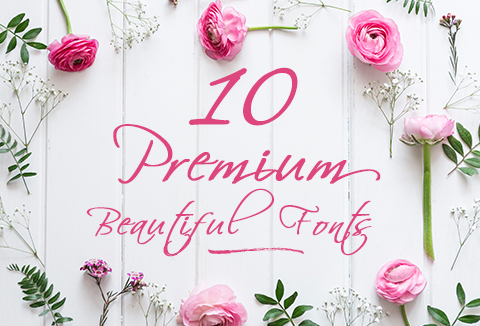
10 Creative Fonts Bundle
It’s a lovely and unique bundle of creative typefaces, allowing you to make each word look completely stylish!
Best for gorgeous designs, logos, headlines, banners and templates etc.
This bundle is a perfect combination of handwritten, mordern and clean fonts put together.
Preview of The 10 Creative Fonts From Creative Tacos
PaperCutting Font – 100% drawn by hand, perfectly captures the structure of a paper cutting in your projects.
Alayna Valentine Love – A lovely, heart-shaped handwritten font with a personal charm.
Abell Font – A set of 5 different weights. It is a sans serif font with a geometric shape and little art-deco touch.h
Aaminah Font – A lovely, shaped handwritten font with a personal charm and pretty shapes.
Garvin Slab Serif Font – A set of 4 weights. It’s a lovely and unique slab serif typeface.
Erica Script Font – a beautiful handwritten font that contains 1 weight and is specifically designed for minimal projects.
Ceica Handwritten Duo Font – a dual handmade brush script font containing uppercase and lowercase characters, numerals, punctuations, and alternatives.
Azel Serif Font – The Azel Serif Typeface is a minimalist and beautiful serif font family of 4 weights, and it features a unique and modern serif look and feel.
Yadon Sans Serif Font – A set of 7 weights. It’s a lovely and unique sans serif font , and it suits a modern/clean feel.
Ainsley Sans Serif Font – A customized sans serif font that contains regular weight and features a unique and modern sans serif look and feel.